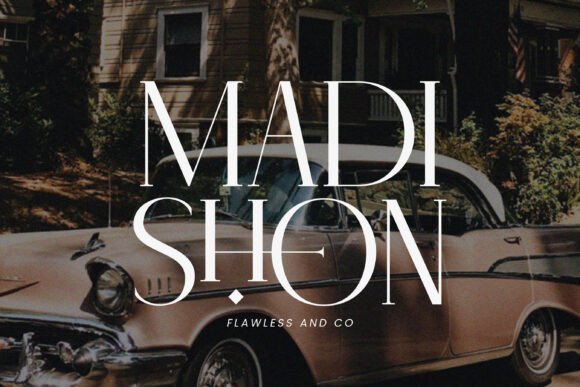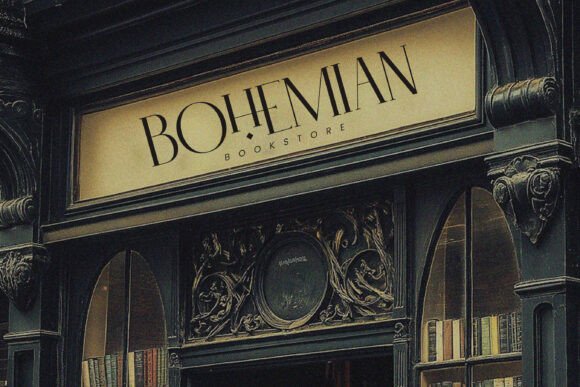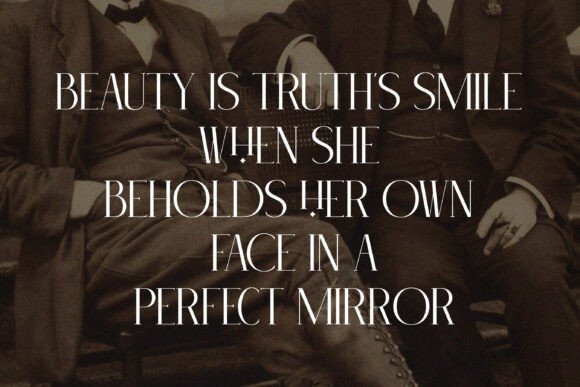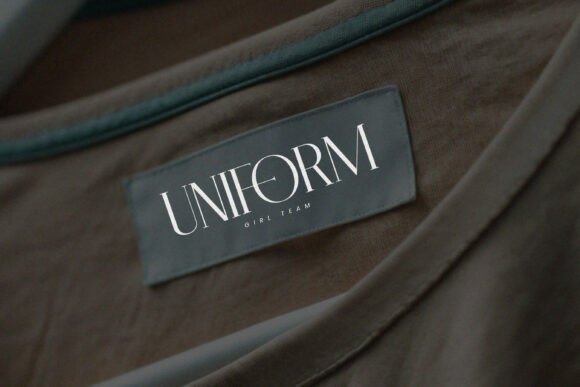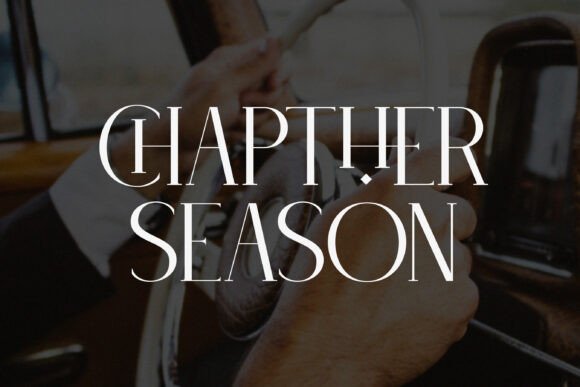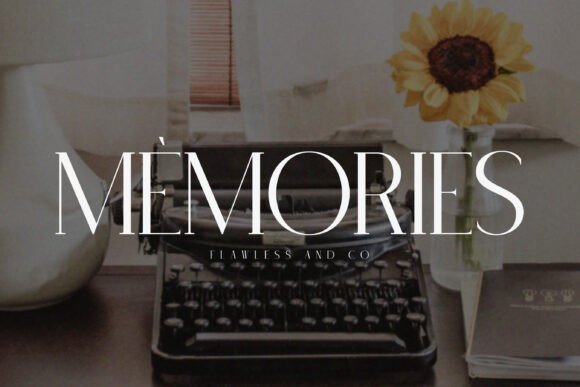
Introduction to Fosther Font Font
Fonts play a crucial role in design, and the Fosther Font font is a typeface that brings both character and versatility to any project. Whether you’re working on a branding project, a website, or a print design, the Fosther Font font offers a unique style that can elevate your work.
Introducing β€œFosther” a refined serif font combining timeless elegance and modern design.
With its sleek letterforms and beautifully crafted ligatures, Fosther is perfect for adding a touch of sophistication to your projects This font is suitable for any graphic design, such as branding materials, wedding stationery, product packaging, branding and logo, etc.
Key Features of Fosther Font Font
Why Choose Fosther Font Font?
The Fosther Font font is more than just a typeface – it’s a design tool that helps you communicate your message with style and clarity. Its unique character set and versatile design make it suitable for a wide range of applications, from elegant invitations to bold headlines.
With its carefully crafted letterforms and balanced proportions, the Fosther Font font ensures readability and visual appeal across all mediums.
What makes Fosther Font font special?
The Fosther Font font stands out with its unique design, exceptional readability, and versatility across various design applications.